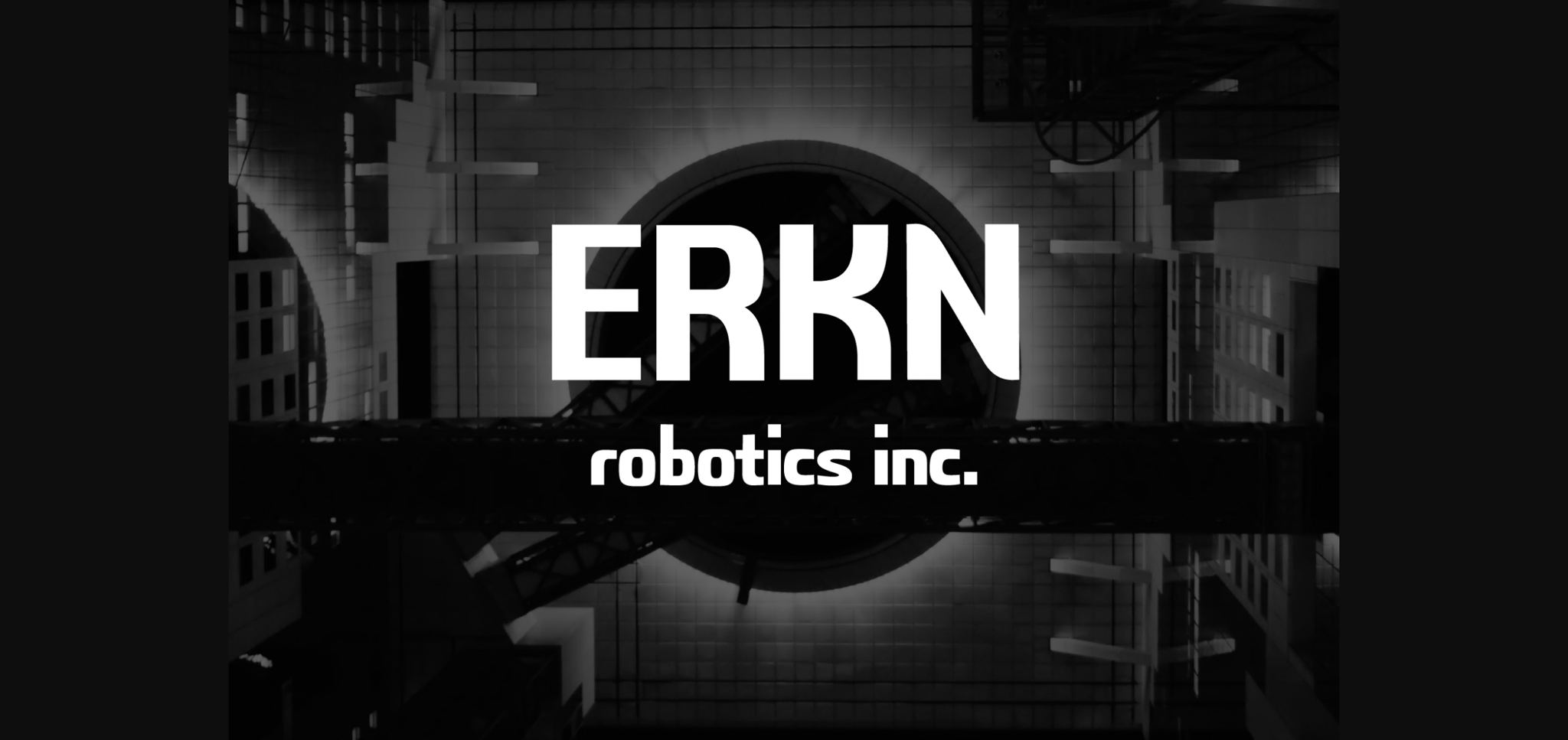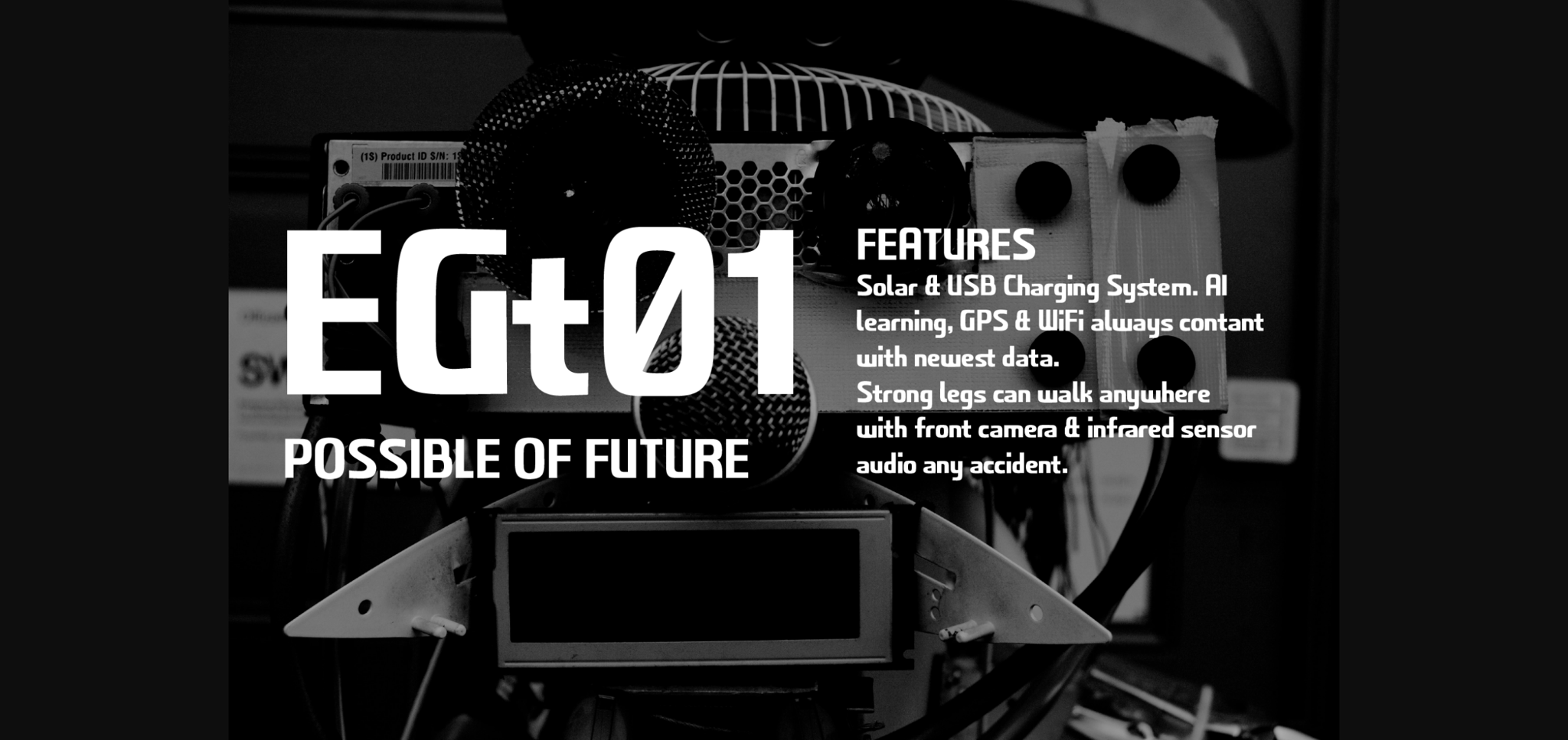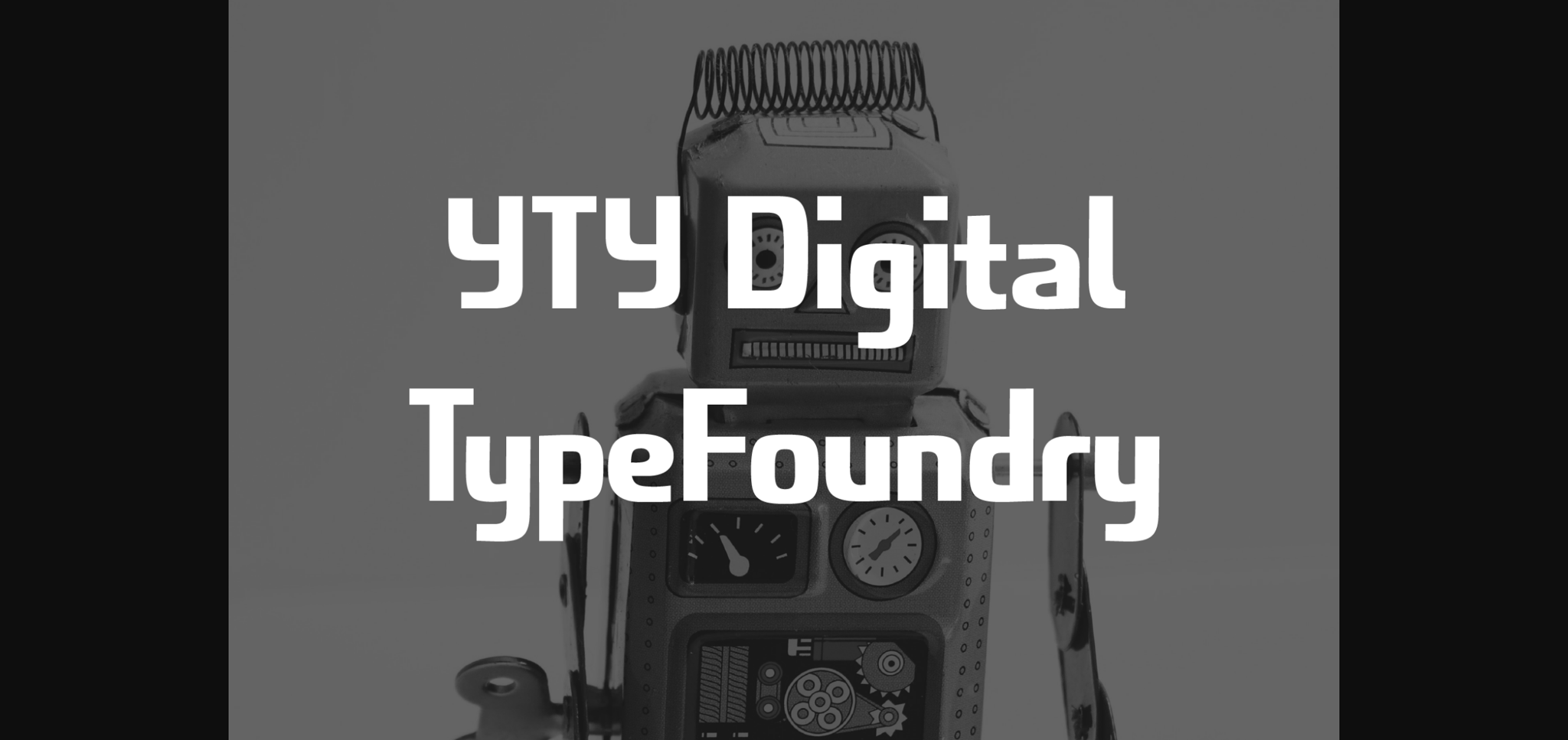
Erkn Font
About Erkn Font
Erkn is a rounded and mechanical sans serif font. It offers support for all characters of the European languages. Standard punctuation and diacritic glyphs are included. Compatible with tools such as Photoshop or Illustrator. Include OpenType features ligatures and kerning. Featuring a geometric style, great for classical and techno alike.